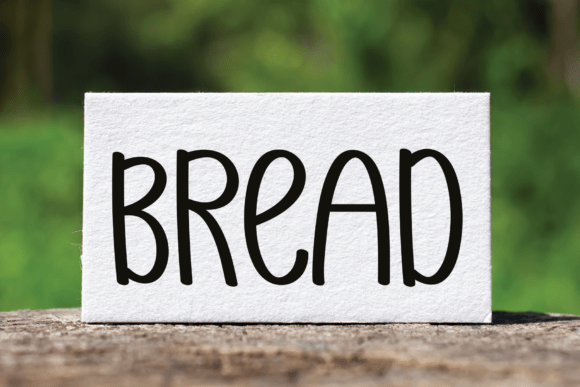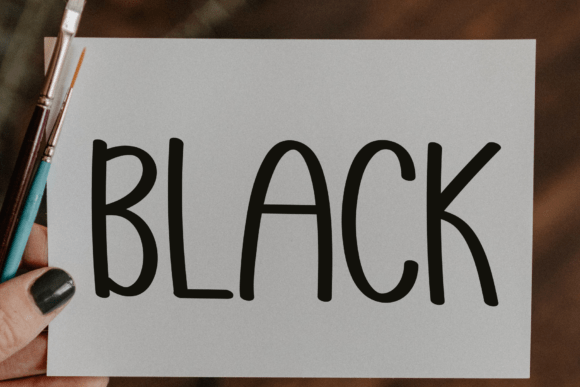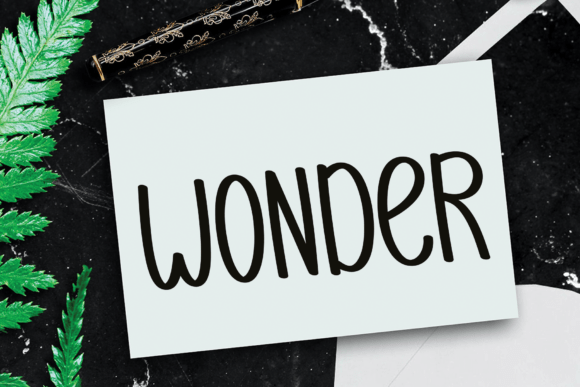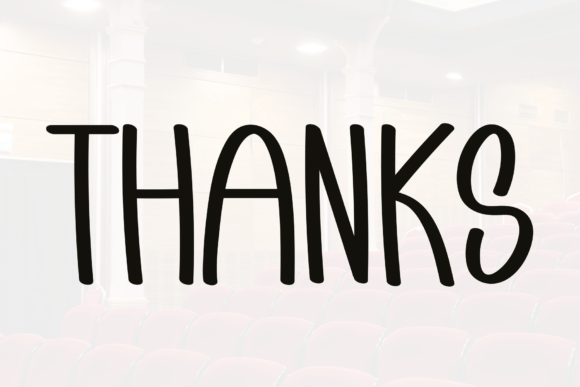
The Designer’s Delight: Getting to Know the Dusney Font
Ah, the elusive perfect font. You know, that one that makes your design project go from meh to mesmerizing. I recall working on a branding project for a cozy little café, and the struggle was real. The client wanted something warm, inviting, and uniquely charming. That’s when I stumbled upon the Dusney font, and let me tell you, it was love at first sight! ✨
What I Love About Dusney
- ✨ Smooth strokes and organic lines that scream relaxed elegance
- ✅ Highly legible, even at smaller sizes
- ✅ Perfect for a variety of design projects, from branding to social media graphics
- ✅ The handwritten feel adds a touch of warmth and personality to any design
While Dusney is an amazing font, it’s not without its quirks. ⚠️ Keep in mind that:
- 🤔 It might not be the best choice for very formal or corporate designs, as it leans more towards a casual, friendly vibe
- ⚠️ Some characters, like the uppercase letters, can get a bit ornate, which might not work well for titles or headings
Exploring Alternatives: Similar Fonts to Dusney
While Dusney is a unique gem, you might be interested in exploring other options. Here are a few similar fonts that share a similar personality:
- Pacifico: A beautiful, modern script font with a relaxed vibe. Perfect for branding, social media, and more.
- Great Vibes: A fun, energetic script font with a playful feel. Great for headlines, titles, and attention-grabbing designs.
- Lobster: A classic, elegant script font with a sophisticated touch. Ideal for formal events, luxury brands, and high-end designs.
- Carolyna Pro: A lovely, handwritten font with a whimsical feel. Suitable for creative projects, invitations, and more.
The Story Behind Dusney: A Glimpse into the Designer’s Inspiration
While the origins of Dusney might be shrouded in mystery, it’s easy to imagine that the designer was inspired by the warmth and charm of handwritten letters. Perhaps they spent hours pouring over vintage typography books, searching for the perfect blend of elegance and playfulness. Whatever the story, Dusney is a true gem that deserves to shine in your design projects.
| Font Name | Dusney Font |
| Author | KC Production |
Q: Is Dusney suitable for body text?
A: While Dusney is highly legible, it’s primarily designed for display purposes. For body text, you might want to opt for a more traditional, serif font.
Q: Does Dusney support OpenType features?
A: Yes, Dusney supports various OpenType features, including stylistic alternates, glyphs, and more. Experiment with these features to unlock the full potential of the font.